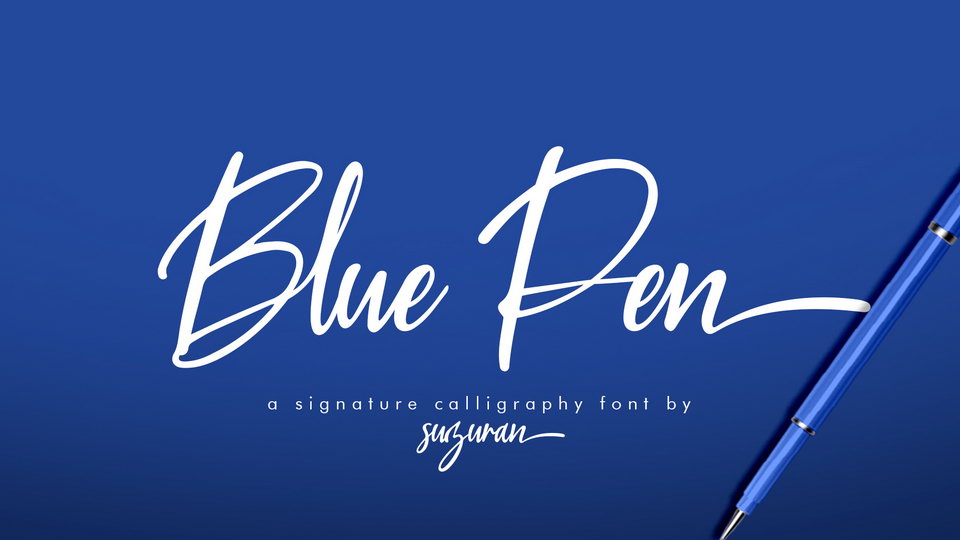
Download Blue Pen font – a beautiful modern signature script, a font that is very fresh and unique style handmade. It’s perfectly suited to logo, stationery, poster, apparel, branding, wedding invitation, card, tagline, layout design, and much more.
Designer: Suzuran Type